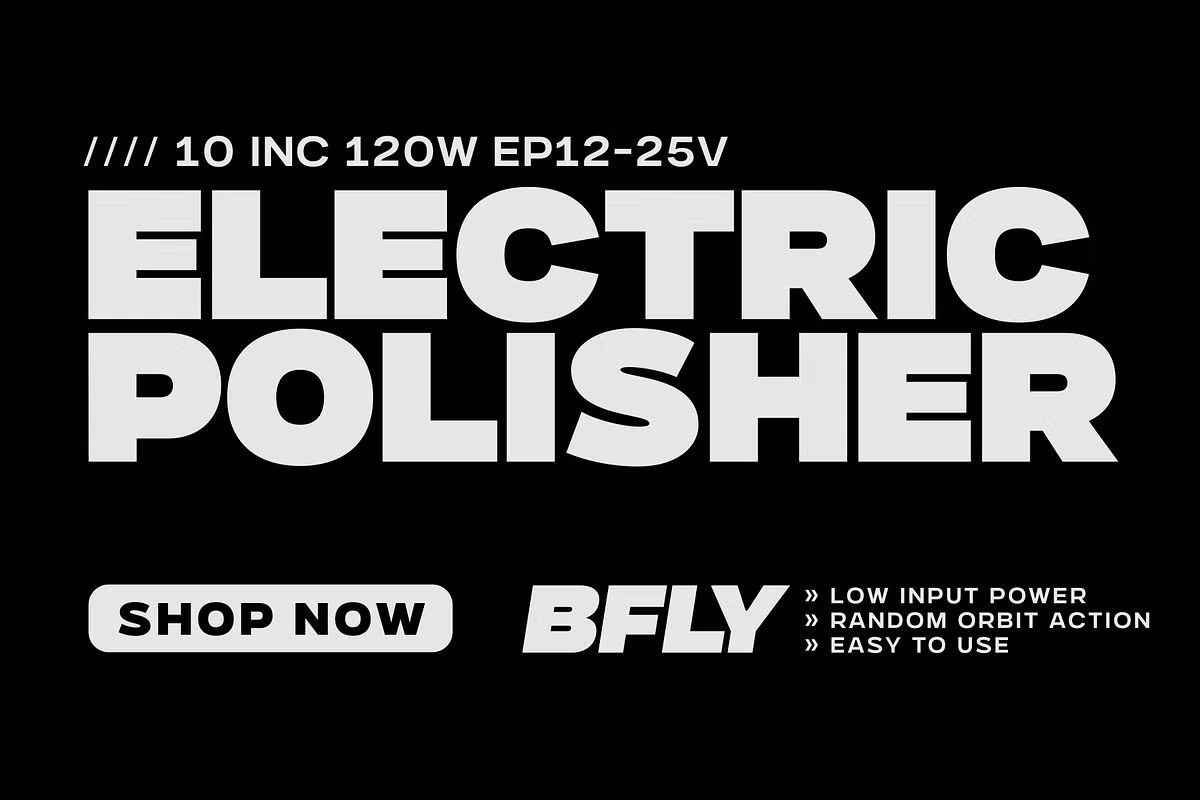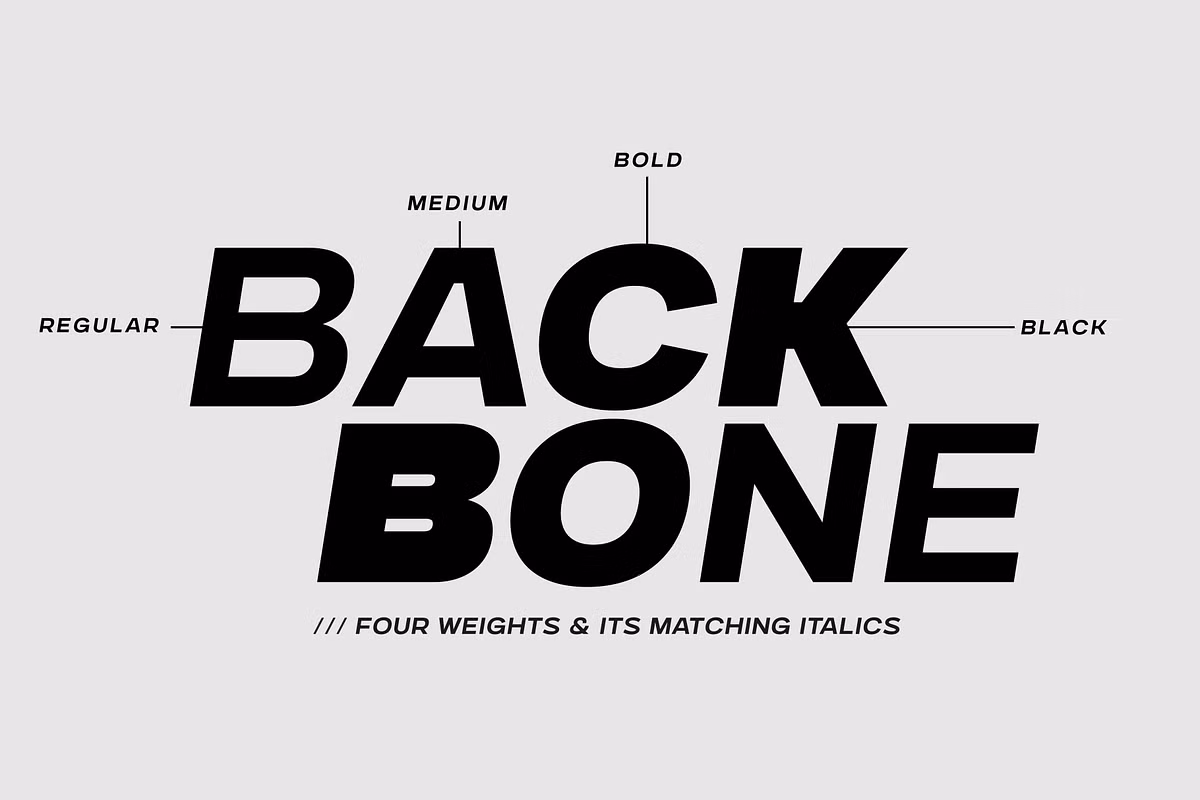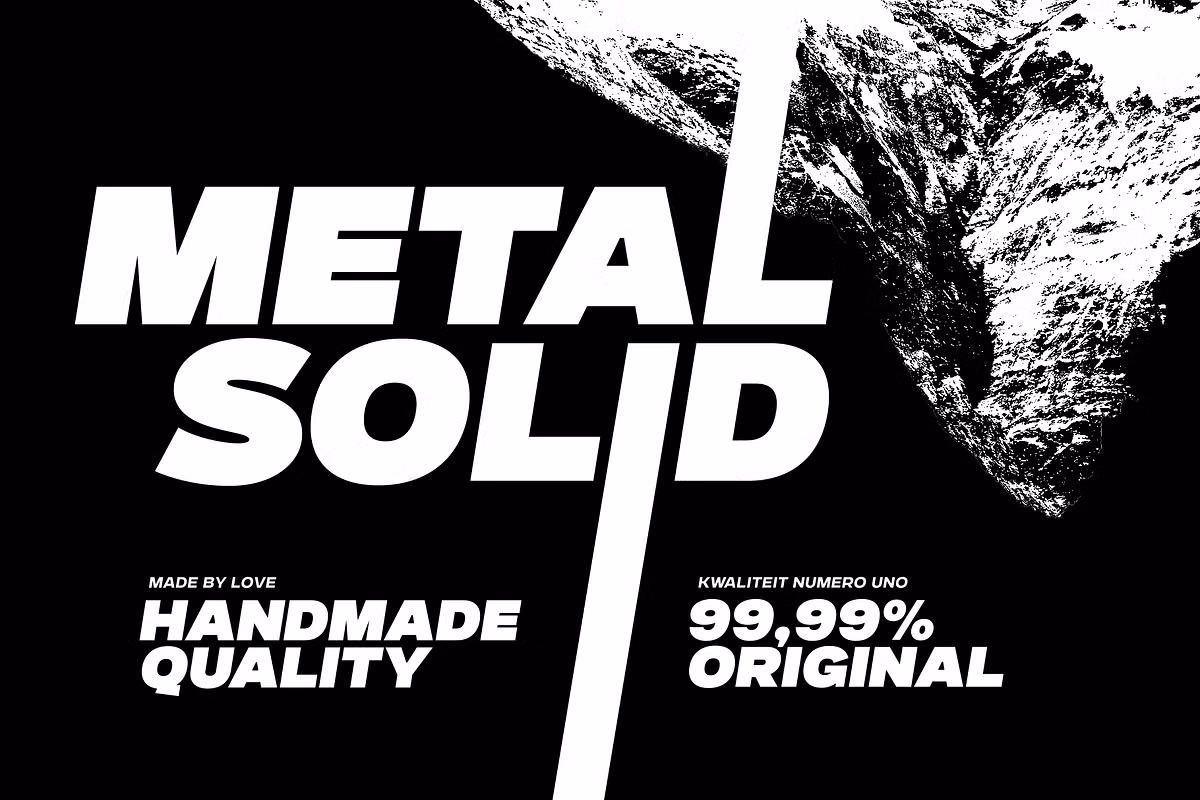
Gunterz
Gunterz: Bold Sans-Serif Font for Dynamic Design Projects
Introduction to Gunterz
If you need an all caps sans serif font for your design work try Gunterz. Gunterz makes the message stand out. Gunterz works in design projects. Gunterz gives a look. Helps you reach the creative goal. I have used Gunterz and Gunterz works, for me. Gunterz catches the eye.
An example of Gunterz font in bold design projects
Gunterz font showcased in a bold design.
Design Style of Gunterz
The design of Gunterz is simple and strong. The design follows the look of sans serif fonts that many designers use today. The all caps style of Gunterz gives authority and clarity. The all caps style of Gunterz works well for messages that need emphasis. The font Gunterz comes in four weights. The four weights include the ExtraBold style. The four weights give the flexibility that designers need for typography choices. When I work with Gunterz I notice how the letters stand out in a headline. If you are looking to make headlines or subtle subheadings Gunterz provides a range of options, for the needs you have. The range of options, from Gunterz lets you pick the weight without any hassle.
When I use Gunterz I see that Gunterz includes matching italics that add flexibility. The matching italics let me build type layouts that fit uses from fun designs to communications. I find Gunterz works in both serious work. Gunterz has lines and geometric shapes that give a look. Gunterzs clean lines and geometric shapes make Gunterz a good pick for design projects.
Illustration showcasing Gunterz font in various weights
Showcasing the different weights of Gunterz font.
Opentype Features
I use Gunterz. I see that Gunterz is not any font. Gunterz feels fresh. Gunterz comes with OpenType features that improve the use of Gunterz. The OpenType features include alternates and a stylistic set. The OpenType features give options for customizing. The OpenType features let designers try letter shapes. The OpenType features give a look, in each project. The flexibility of the OpenType features helps brand work and logo work, where being matters.
Character Sets and Language Support
Besides its style flexibility Gunterz supports character sets, including Cyrillic. This language support makes Gunterz a good choice for projects or brands that want to reach audiences. I have used Gunterz on projects that need Cyrillic and Gunterz worked well. The inclusion of Cyrillic characters lets Gunterz keep its look while Gunterz delivers messages, in languages.
Demonstration of Gunterz font in multilingual designs
Gunterz font supporting multiple languages.
I have seen that adaptability matters in the world. The brands must talk to the audiences, in regions and cultures. If you choose Gunterz you can be sure that your designs will connect with people without losing style or impact. Your designs will keep style. Keep impact.
Use Cases for Gunterz
I have used Gunterz for tasks. Gunterz is a tool, in the designer’s kit. Below are some ways that Gunterz works well:
• Poster Titles: I find the bold look of Gunterz makes Gunterz perfect, for the poster titles. The poster titles that grab attention work well with Gunterz.
• Packaging Design: Gunterz can improve product packaging. Gunterz helps brands stand out on the shelves. I notice the difference when I walk into a store.
• Headlines: In print or digital media Gunterz makes headlines pop. Gunterz makes headlines draw the reader in.
• Logotypes: The Logotypes design is strong and unique. The Logotypes design works well for creating logos. The Logotypes design helps brands build an identity.
• Motion Graphics: Gunterz works well for the animated titles and graphics, for videos. Gunterz adds a look, to storytelling.
• Sports Promotion: Sports Promotion has a style. Sports Promotion matches the energy of sports branding and promotional materials.
• Future Technology: Gunterz shows innovation. I think Gunterz works well for the tech designs that want to show forward ideas.
Gunterz font applied in various branding materials
Gunterz font applied to branding materials.